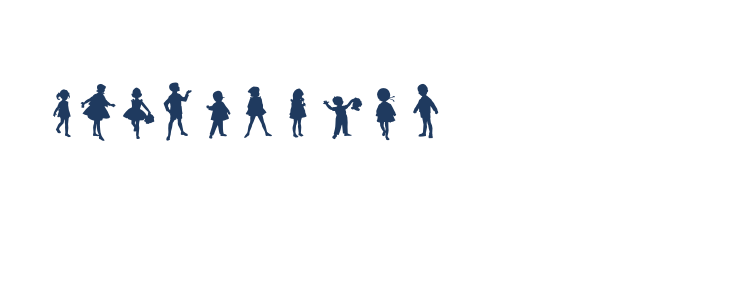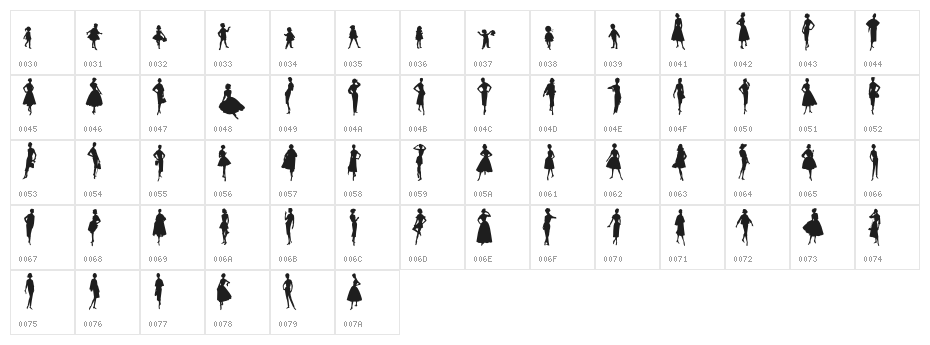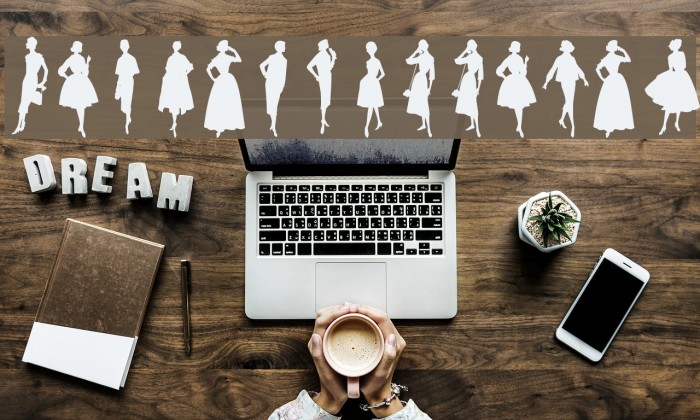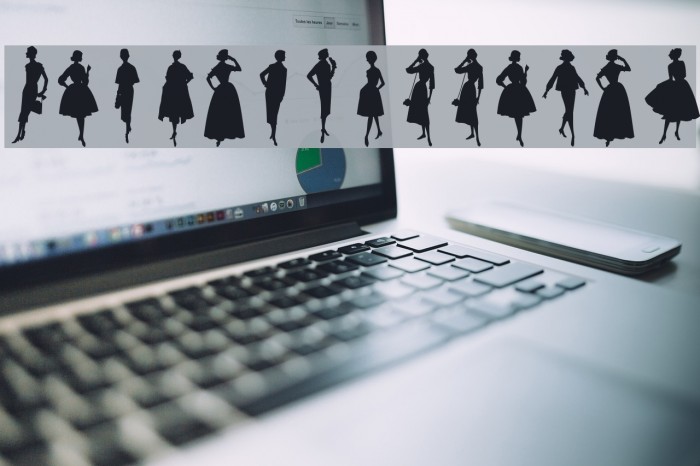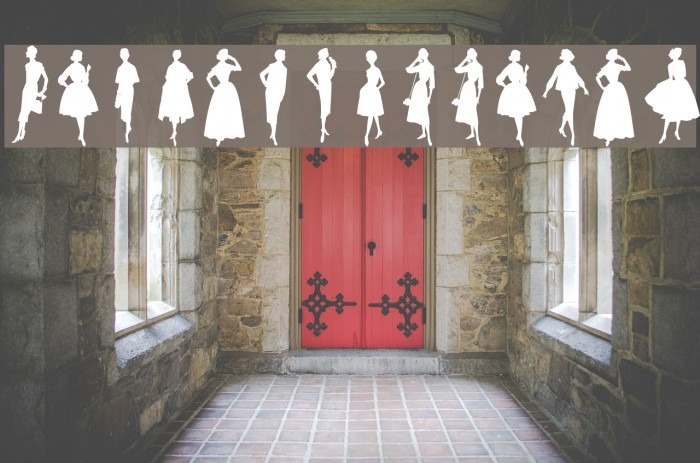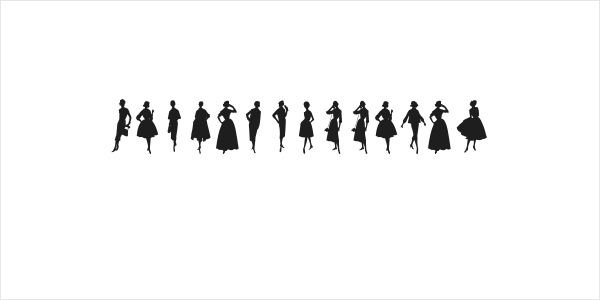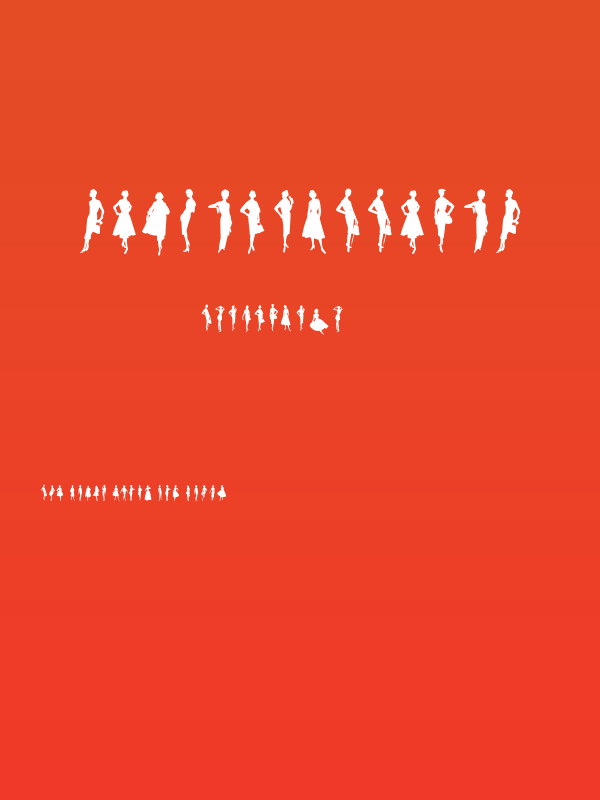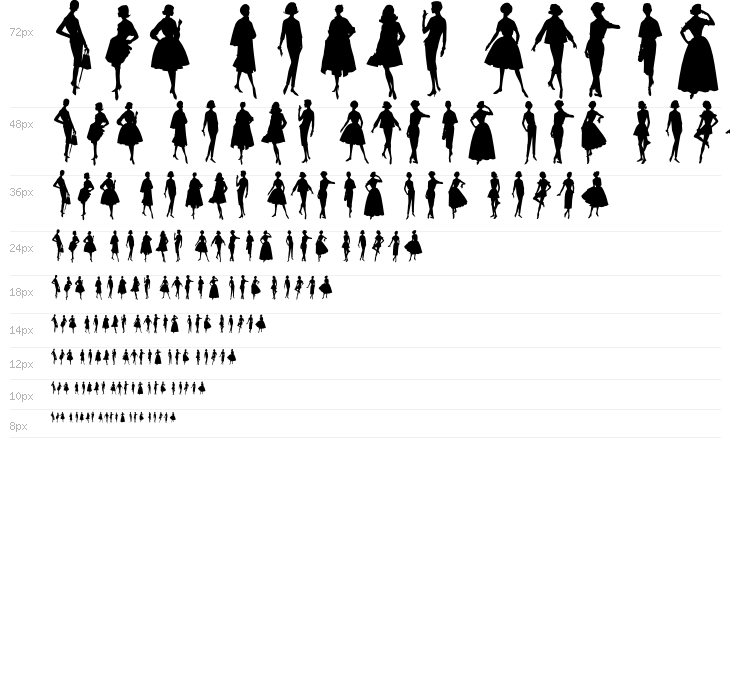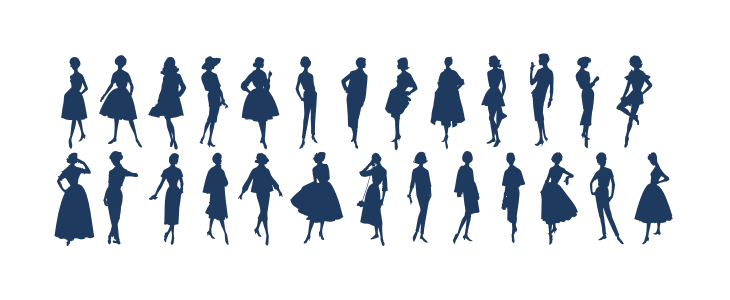
SewingPatterns Font
SewingPatterns Description
A decorative font consisting of black silhouette figures of women and children in various vintage-style clothing poses, resembling sewing patterns or fashion illustrations.
| Overall Style | Vintage, Fashion Illustration |
| Use Case | Decorative headlines, logos, fashion-related designs, and thematic artwork. |
| Proposed Projects | Fashion design branding, vintage-themed invitations, sewing and craft projects, editorial illustrations, and decorative posters. |